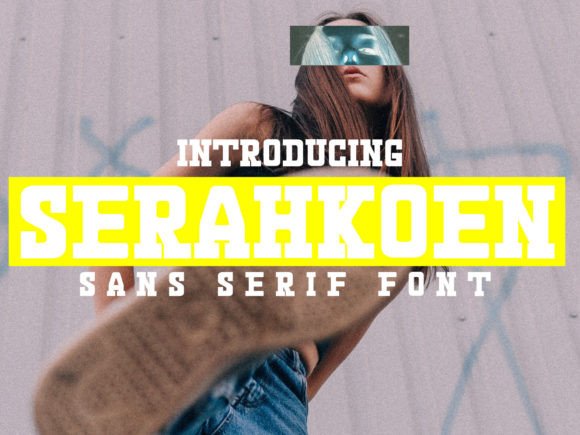
Discover the Enchanting World of Serahkoen: A Timeless Serif Font for Connoisseurs of Elegance
In a realm where visual aesthetics reign supreme, typography emerges as a captivating art form, shaping the narrative of your creative endeavors. Introducing Serahkoen, an exquisite serif font that radiates sophistication and charm, poised to elevate your designs to new heights of elegance.
Serahkoen, meticulously crafted by the talented artnivora.std, is more than just a font; it's an experience, a journey into the timeless realm of classic typography. Its graceful curves and refined lines evoke a sense of nostalgia, reminiscent of bygone eras where beauty and artistry converged.
As a serif font, Serahkoen exudes an air of authority and trustworthiness, making it an ideal choice for projects that demand a touch of gravitas. Its delicate serifs lend an aura of refinement, adding depth and texture to your designs.
Whether you're a seasoned designer or an aspiring creative, Serahkoen is your perfect companion. Its versatility knows no bounds, seamlessly adapting to a myriad of projects, from captivating logos that command attention to alluring magazine layouts that transport readers to a world of enchantment.
Unleash the boundless creativity within you and let Serahkoen's timeless beauty elevate your work to new heights. Embrace the allure of this exceptional font and embark on a journey of artistic excellence.